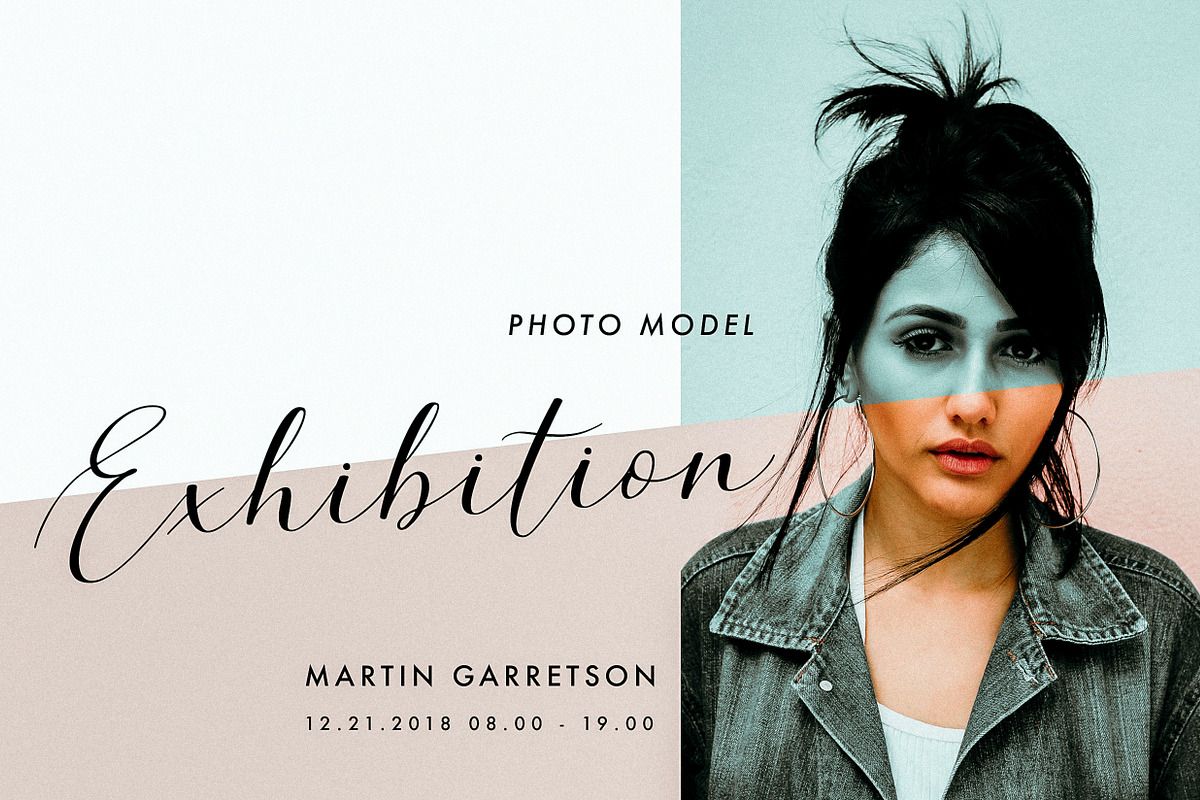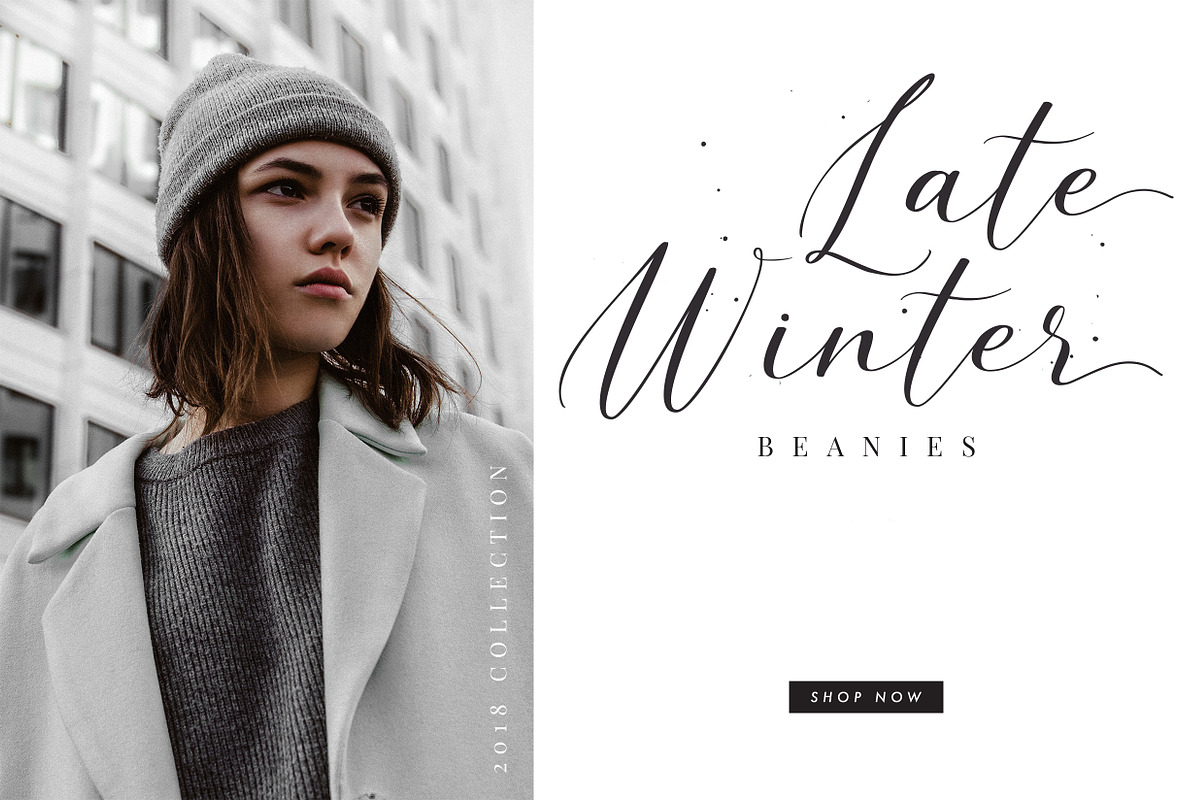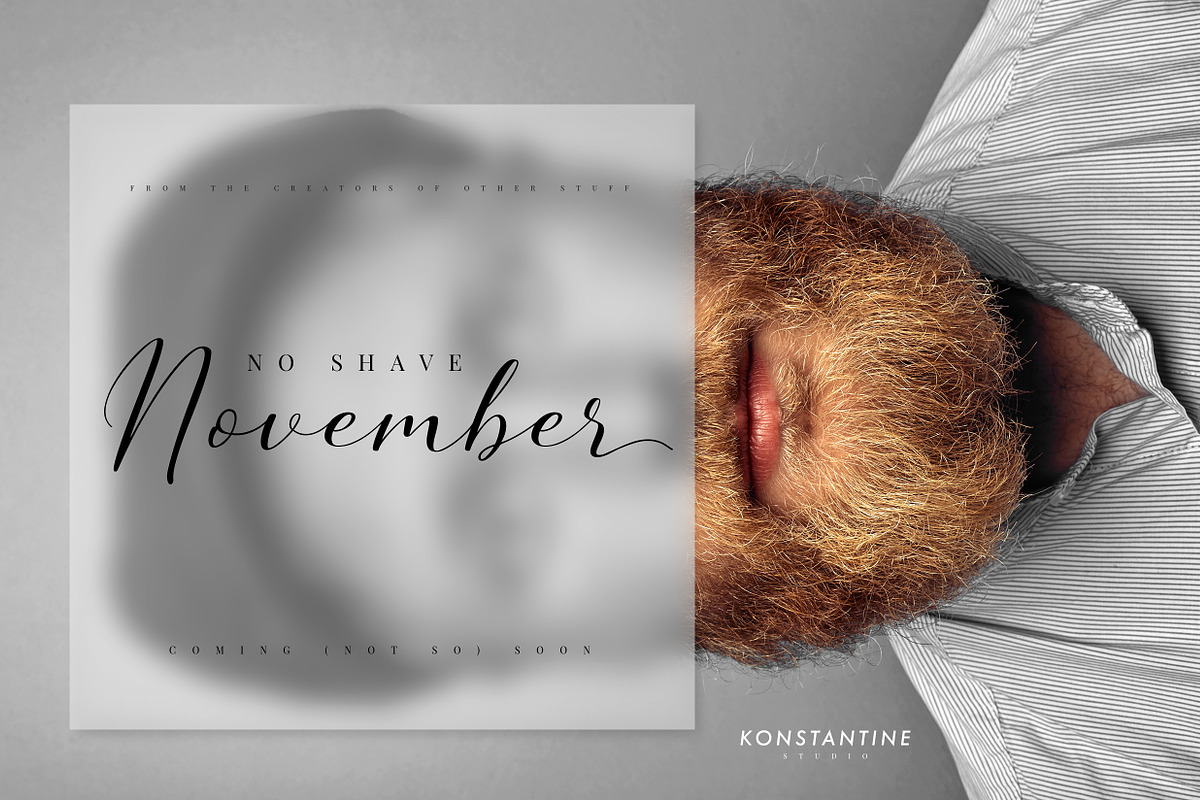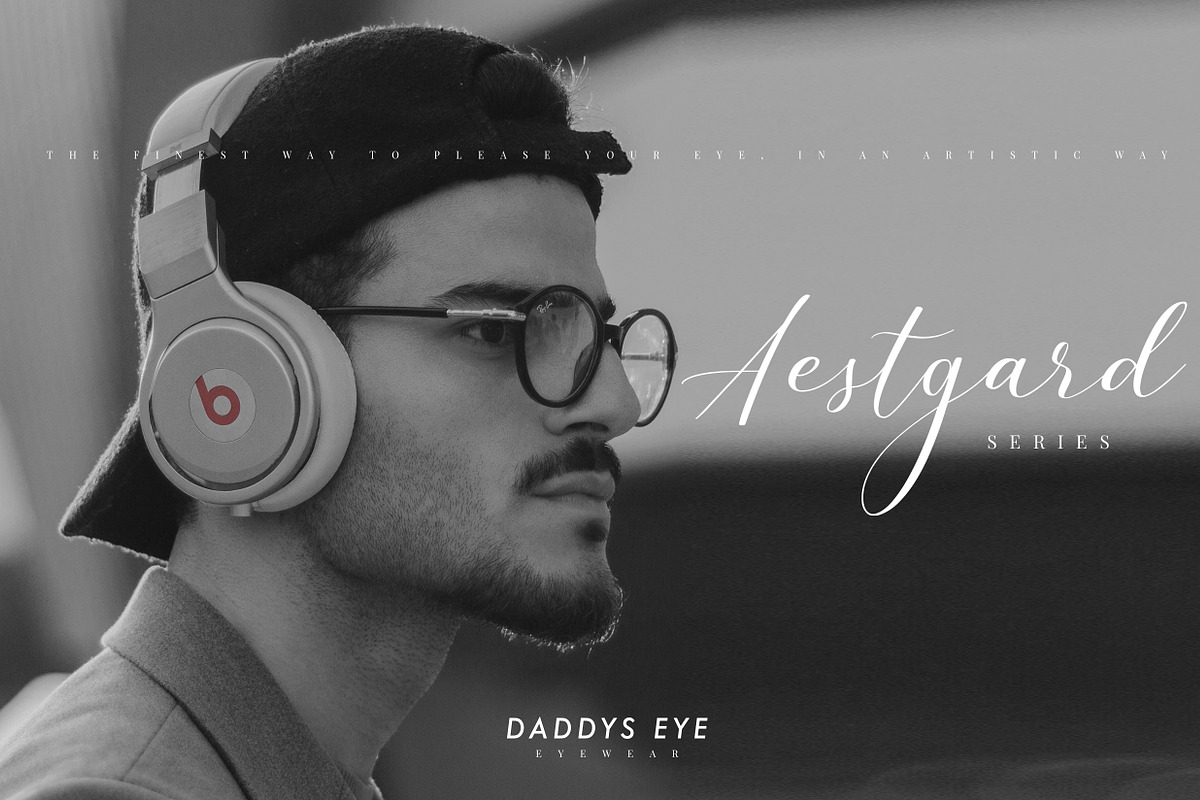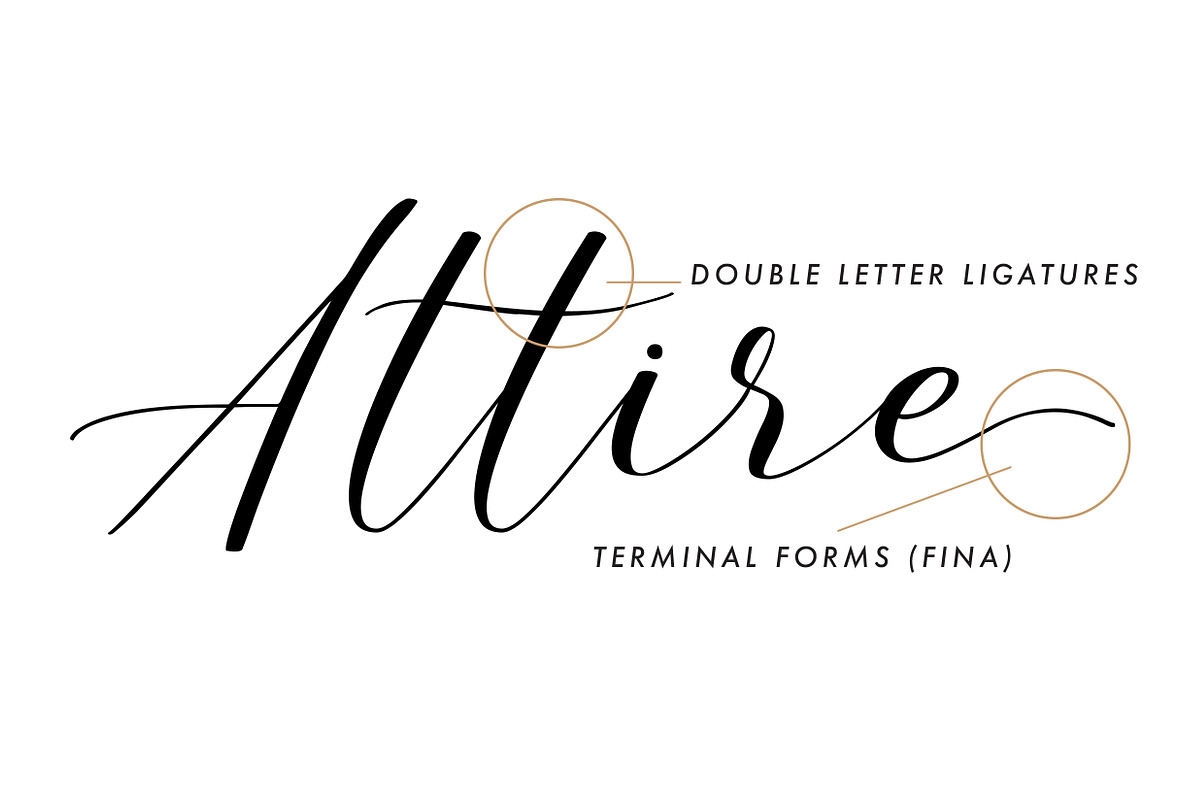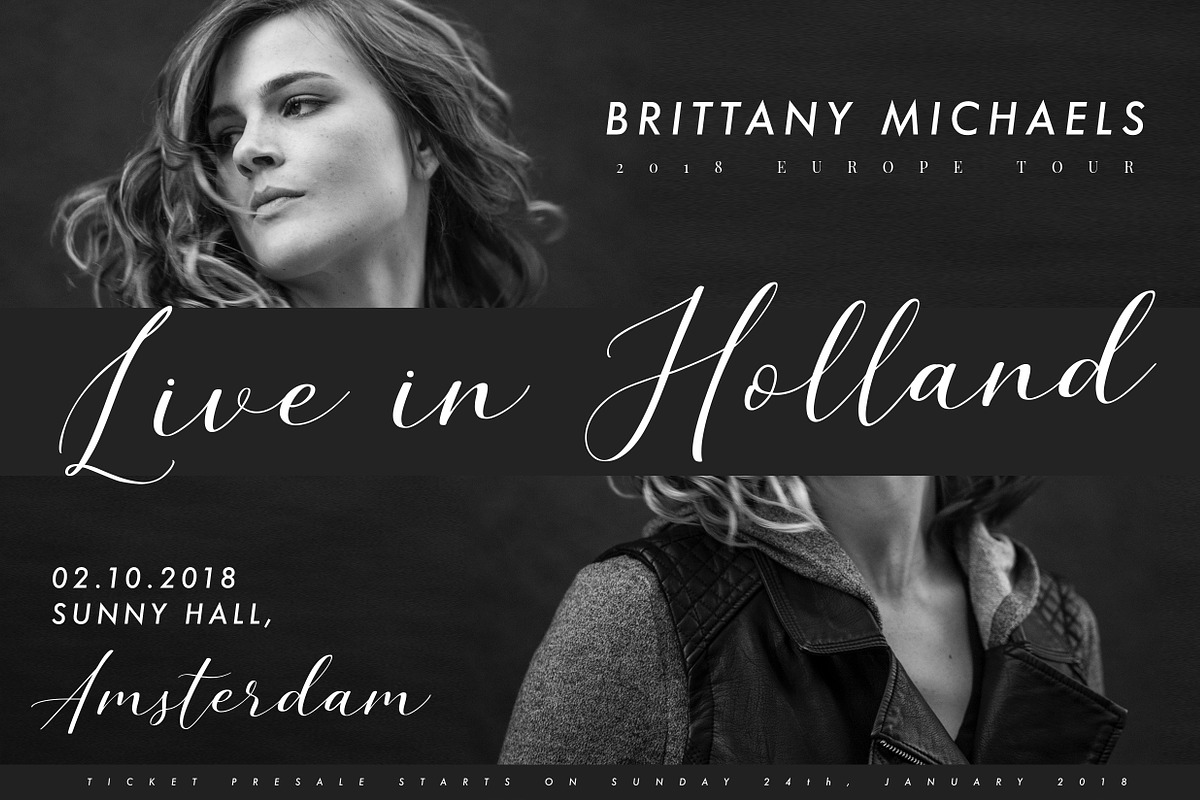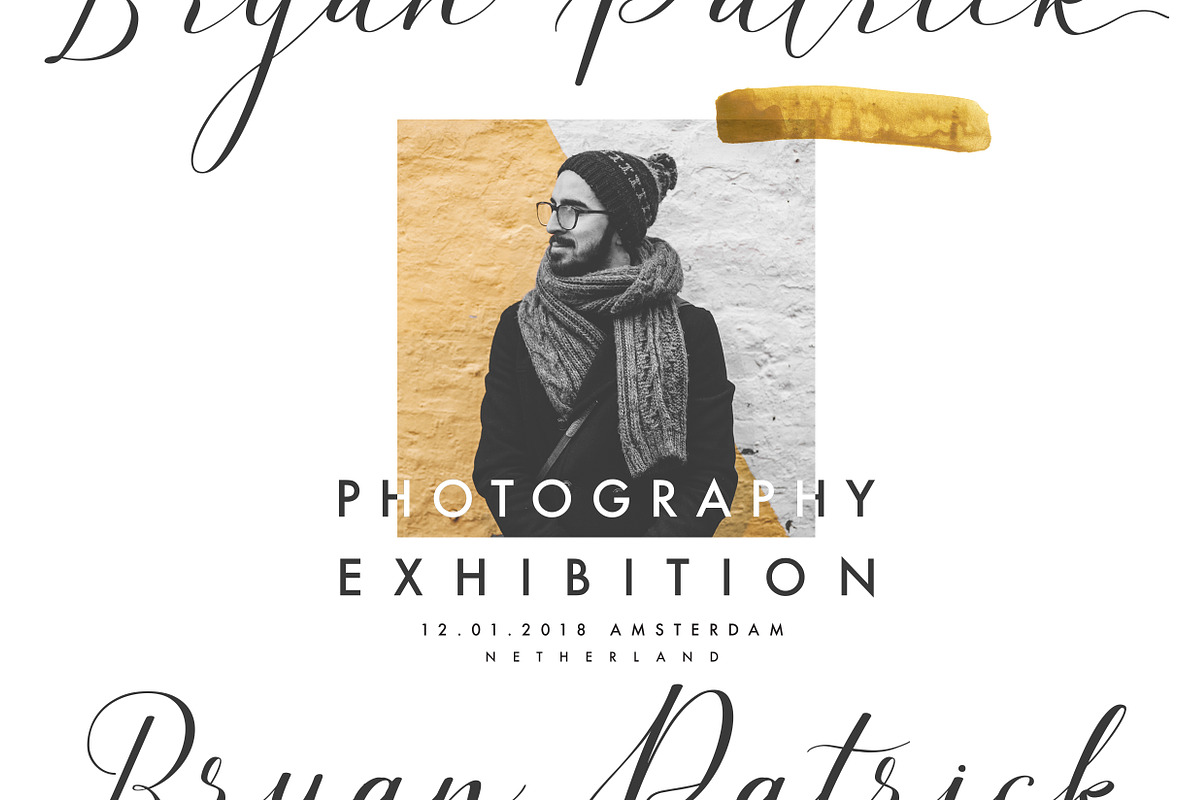
Simple Monologue - Beauty Font
Simple Monologue, a beautiful casual modern calligraphy font. Contemporary script style that hit the trends nowadays. It would be a perfect mate for branding, logo, fashion stuff, cosmetic, apparel, journal, lookbook, greeting cards, a fancy presentation, glamor appearance, magazine. So versatile, right?
Included Uppercase, Lowercase, Numbers & Punctuations, Multilanguage Support, double letter ligatures, and swashy letter-enders that we called Terminal Forms. Check out the preview for more details.